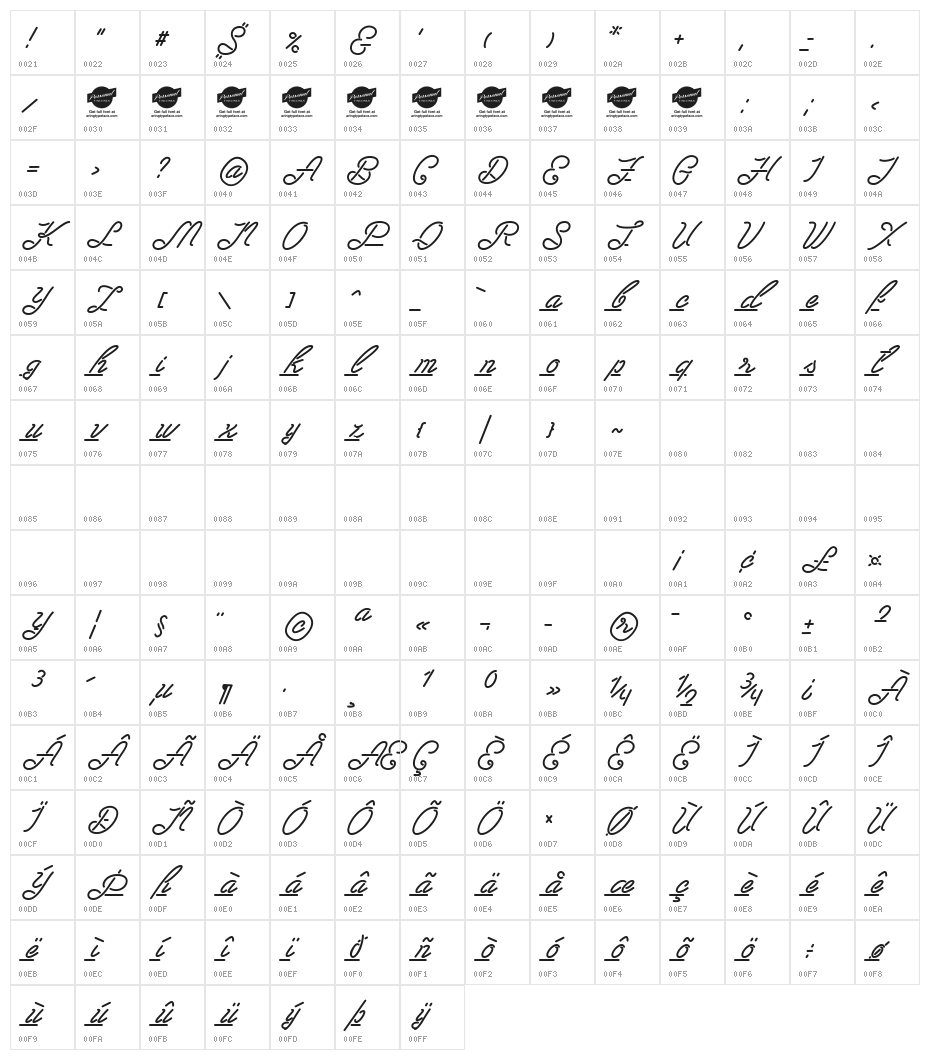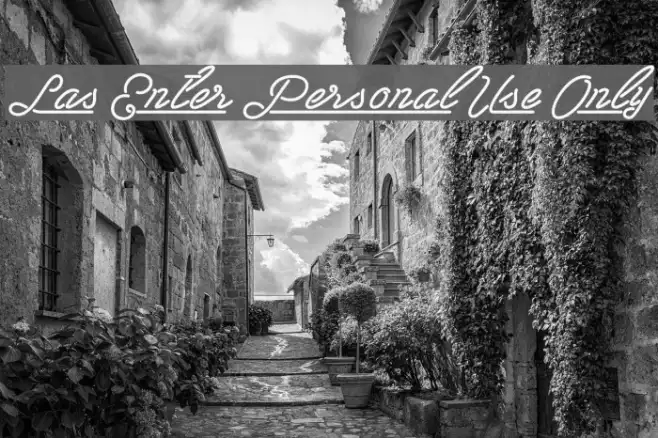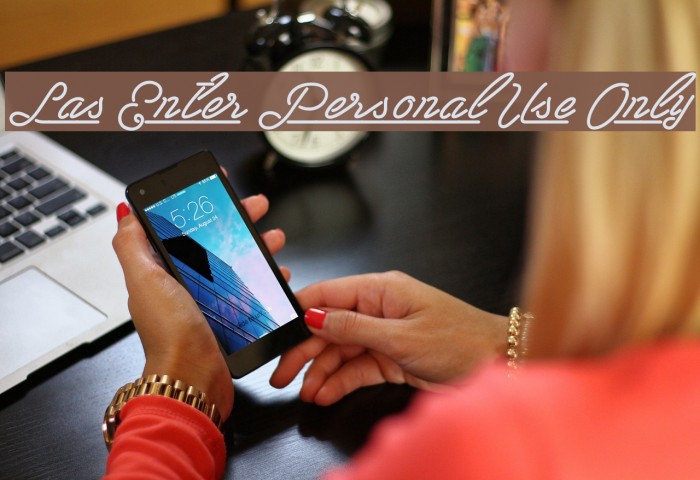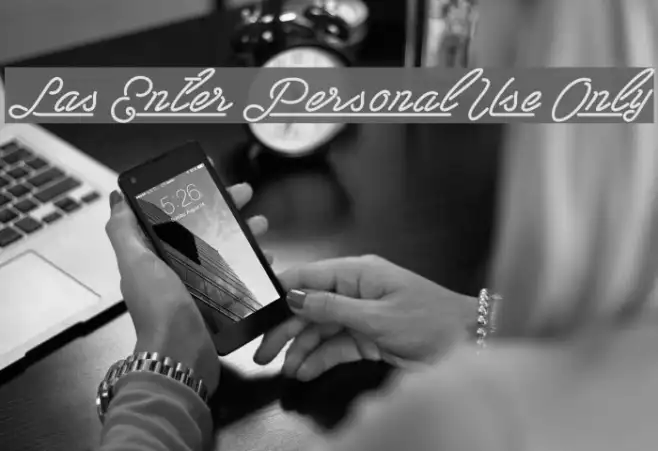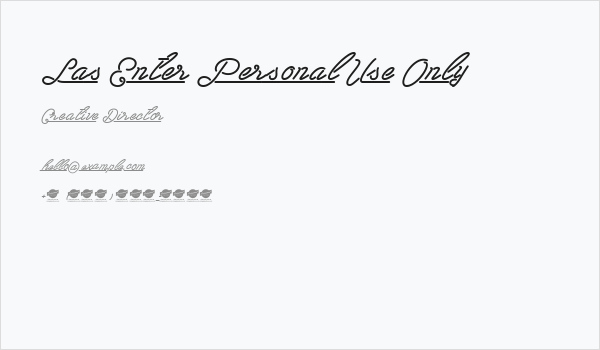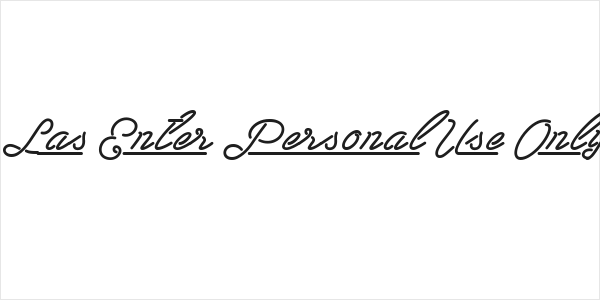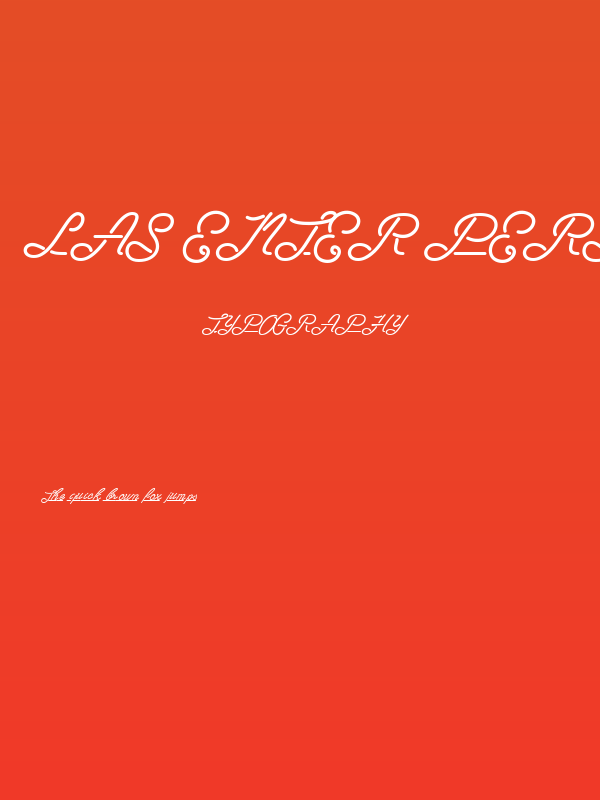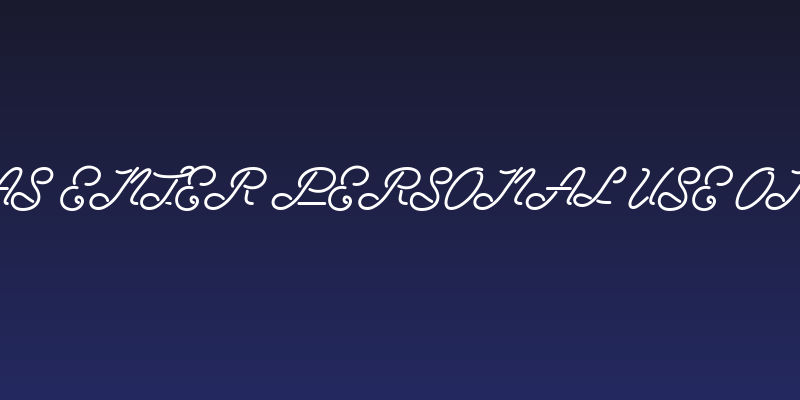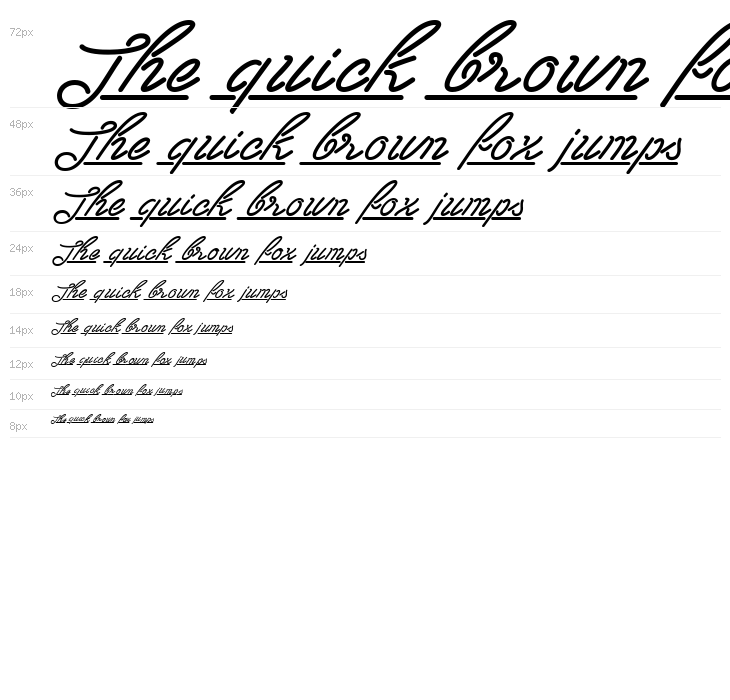
Las Enter Personal Use Only Font
Las Enter Personal Use Only Description
This font features a flowing, cursive style with elegant loops and swashes, giving it a sophisticated and artistic appearance. The uppercase letters are characterized by their ornate and interconnected strokes, while the lowercase letters maintain a consistent and fluid motion, enhancing readability. The numerals and special characters follow the same decorative style, ensuring a cohesive look across all glyphs. This font is ideal for projects that require a touch of elegance and creativity, such as invitations, branding, and artistic designs.
| Use Case | Logos, Invitations, Artistic designs |
| Proposed Projects | Ideal for wedding invitations, branding, artistic designs, and elegant stationery. |